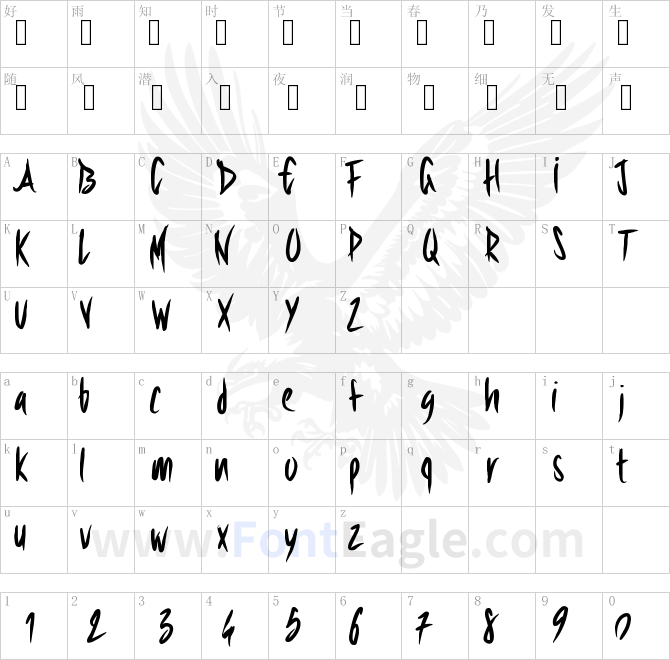
PWSharpBrush is a great font, widely used in graphic design, single-page menu design, poster design and other fields, and is deeply loved by designers.PWSharpBrush download.